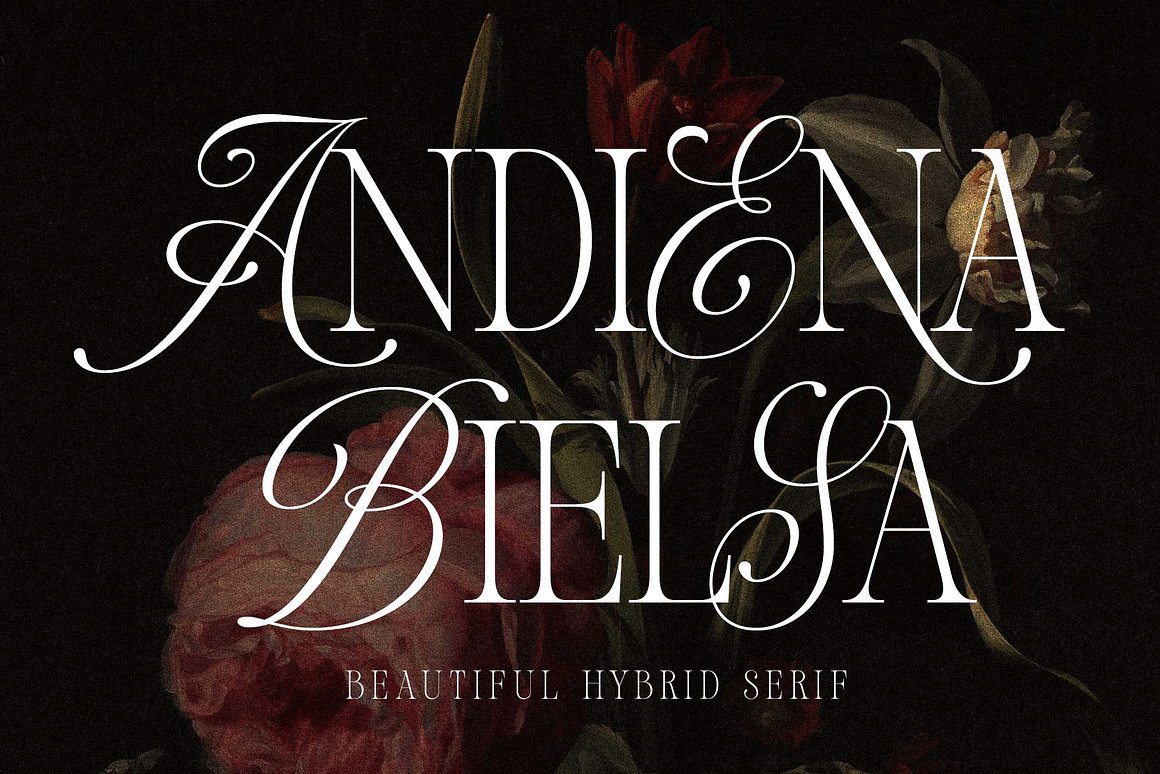
Andiena Bielsa Font
About Andiena Bielsa
Andiena Bielsa is a modern classic hybrid font that blends the elegance of a refined serif with the soft, expressive touch of script details. The result is a typeface that feels graceful without being overdone—perfect for creating designs with a luxurious and timeless look. Whether you’re working on branding, editorial layouts, wedding stationery, packaging, or social media, Andiena Bielsa adds just the right amount of character while staying clean and easy to read.